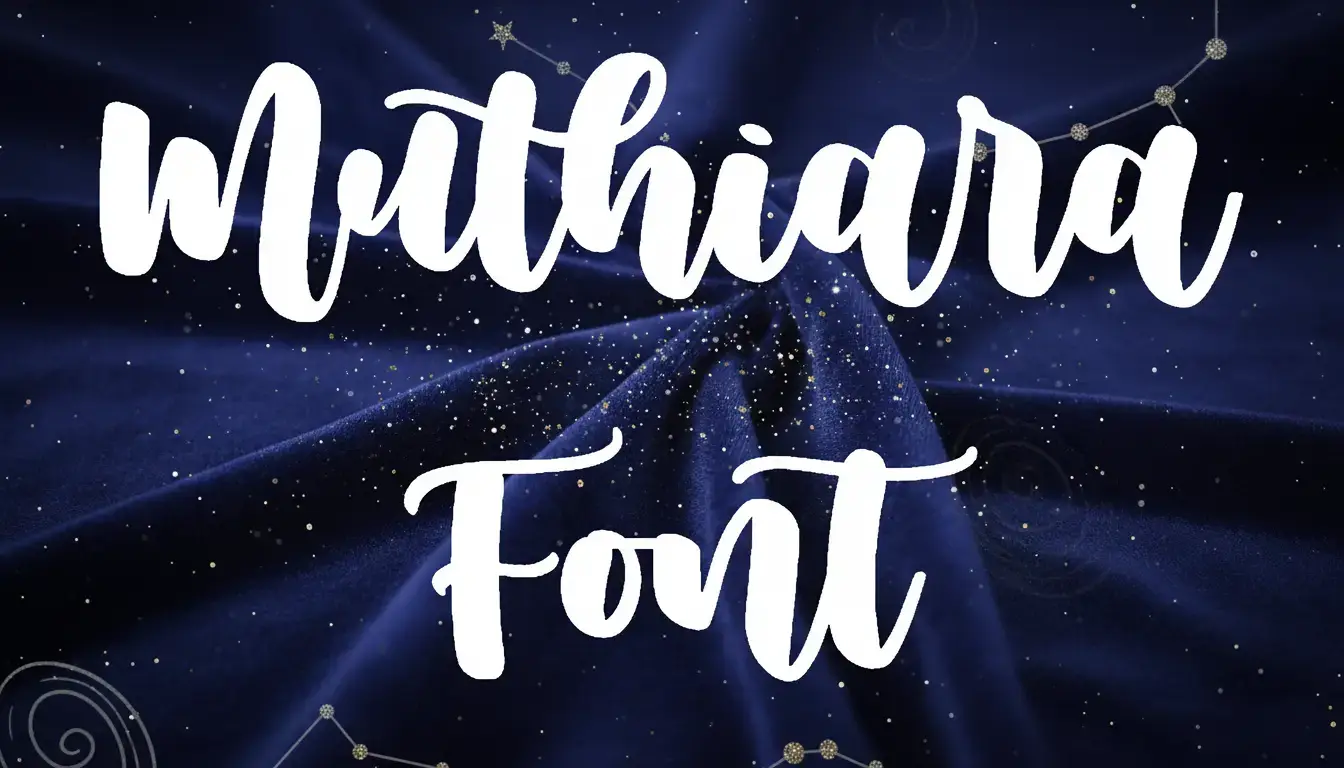
Muthiara is an incredibly popular, modern calligraphy script font designed by Panggah Laksono and published through Abo Daniel Studio. It is widely celebrated in the design community for its timeless, feminine aesthetic and its authentic hand-drawn feel.
Muthiara
Muthiara is a calligraphy font created by Abo Daniel (2020).
- Designer: Abo Daniel